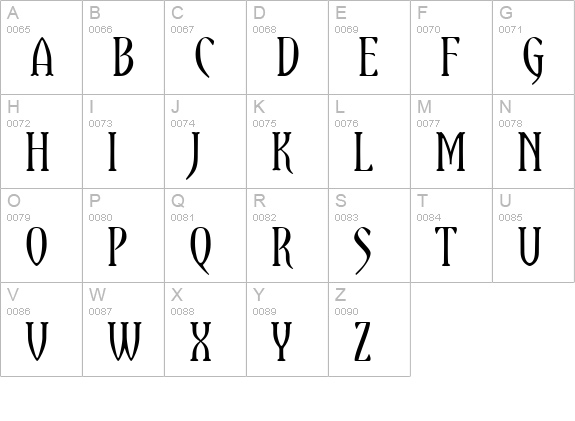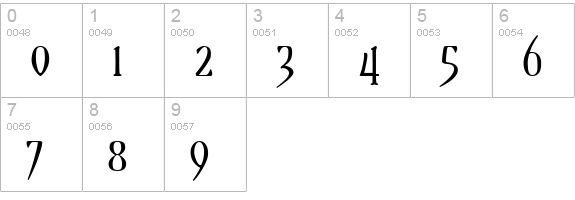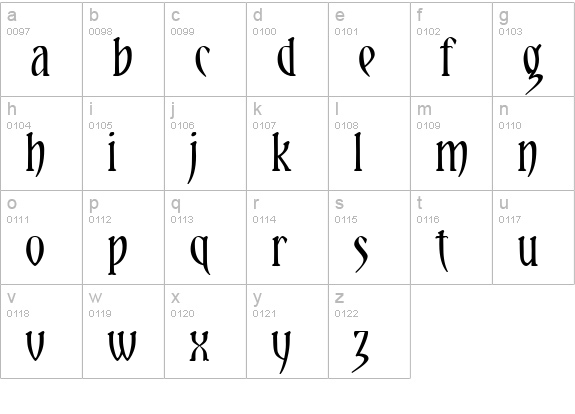
Yataghan Font Details
Yataghan font is a modern and stylish typeface that effortlessly combines elegance with a touch of playfulness. Its flowing lines and sharp edges create a unique aesthetic that is perfect for various design projects, from branding to packaging to digital content. The versatility of Yataghan font makes it suitable for both headings and body text, adding a touch of sophistication to any project. What's even better is that Yataghan font is completely free to download at FontsMarket.com. That's right, you can easily access this stunning typeface without any cost, making it a valuable addition to your font collection. Whether you're a designer, marketer, or content creator, Yataghan font is sure to elevate your work with its distinctive style and visual appeal. Download it today and see for yourself the endless possibilities this font has to offer.